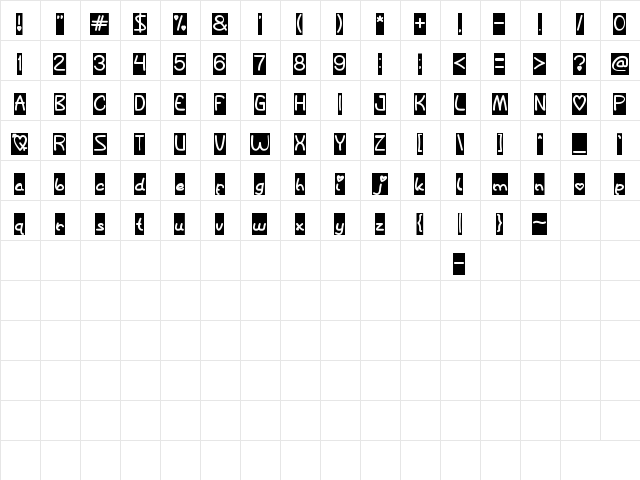
Queen of Love-Inverse Normal
Design Context for Queen of Love-Inverse Typeface
Queen of Love-Inverse is a composed and adaptable typeface that performs quietly and consistently across a wide range of design contexts.
Pro Tip: Pair Queen of Love-Inverse with a font of contrasting weight or personality to build a more expressive typographic hierarchy.